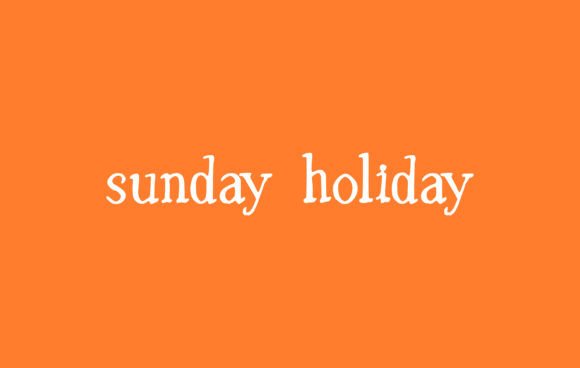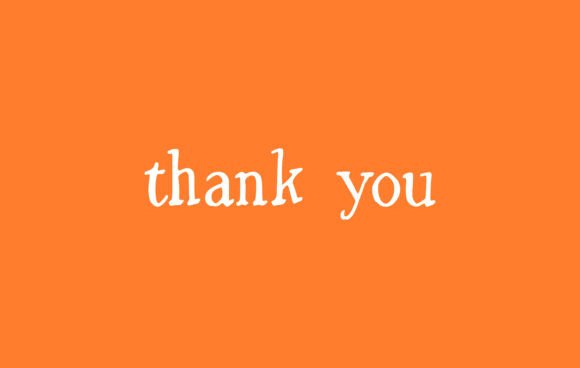
Introducing BMX Stunt Font: The Ultimate Handwritten Font for Creative Projects
Are you a designer or crafter looking for a unique and authentic handwritten font to elevate your creative projects? Look no further than BMX Stunt Font! This romantic and stylish font is expertly designed to capture the essence of handmade writing, making it perfect for a wide range of applications.
What Makes BMX Stunt Font Special?
BMX Stunt Font is an authentic handwritten font that boasts a romantic touch, setting it apart from other fonts on the market. Its unique character and legibility make it an excellent choice for both title and body text, allowing you to use it for a variety of design projects. Whether you’re working on magazine headlines, social media graphics, branding materials, wedding invitations, or cards, this font is sure to impress.
Key Features of BMX Stunt Font
- Authentic Handwritten Style: BMX Stunt Font is designed to mimic the look and feel of handwritten text, giving your designs a personal and human touch.
- Romantic Touch: The font’s romantic undertones make it perfect for projects that require a touch of elegance and sophistication.
- Legibility: Despite its handwritten nature, BMX Stunt Font is highly legible, making it suitable for both title and body text.
- Versatility: This font can be used for a wide range of design projects, from magazine headlines and social media graphics to branding materials, wedding invitations, and cards.
Why Choose BMX Stunt Font?
As a designer or crafter, you know how important it is to have a font that can help you stand out from the crowd. BMX Stunt Font offers a unique and authentic look that will set your designs apart. Its versatility and legibility make it an excellent choice for a wide range of projects, allowing you to use it again and again. Plus, its romantic touch adds a touch of elegance and sophistication to any design.
How to Use BMX Stunt Font in Your Designs
BMX Stunt Font is incredibly easy to use and can be incorporated into your designs in a variety of ways. Here are a few ideas to get you started:
- Magazine Headlines: Use BMX Stunt Font to create eye-catching headlines that grab readers’ attention.
- Social Media Graphics: Add a personal touch to your social media graphics with BMX Stunt Font.
- Branding Materials: Use BMX Stunt Font to create a unique and memorable brand identity.
- Wedding Invitations: Add a touch of romance and elegance to your wedding invitations with BMX Stunt Font.
- Cards: Use BMX Stunt Font to create beautiful and heartfelt cards for any occasion.
Tips and Tricks for Getting the Most Out of BMX Stunt Font
To get the most out of BMX Stunt Font, here are a few tips and tricks to keep in mind:
- Experiment with Different Sizes: BMX Stunt Font looks great in a variety of sizes, so don’t be afraid to experiment to find the perfect size for your design.
- Play with Color: The romantic touch of BMX Stunt Font is enhanced by a range of colors, so try out different color combinations to find the one that works best for your design.
- Mix and Match with Other Fonts: BMX Stunt Font pairs well with a range of other fonts, so try mixing and matching it with other fonts to create a unique look.
BMX Stunt Font is an authentic handwritten font with a romantic touch that is sure to elevate your creative projects to the next level. Its legibility, versatility, and unique character make it an excellent choice for designers and crafters looking for a font that can help them stand out from the crowd. Whether you’re working on magazine headlines, social media graphics, branding materials, wedding invitations, or cards, BMX Stunt Font is the perfect choice.